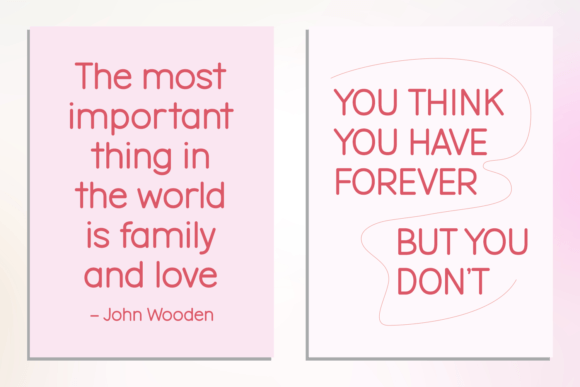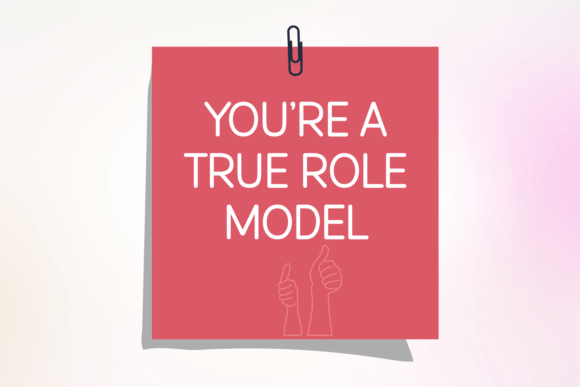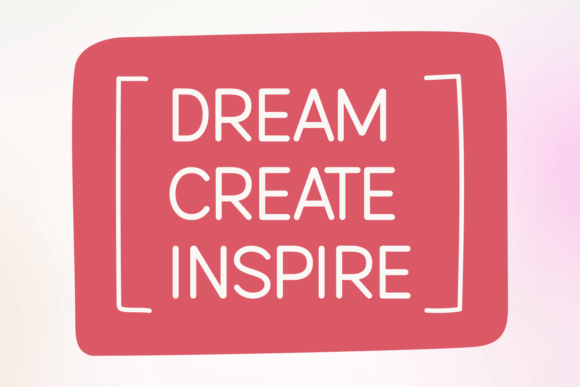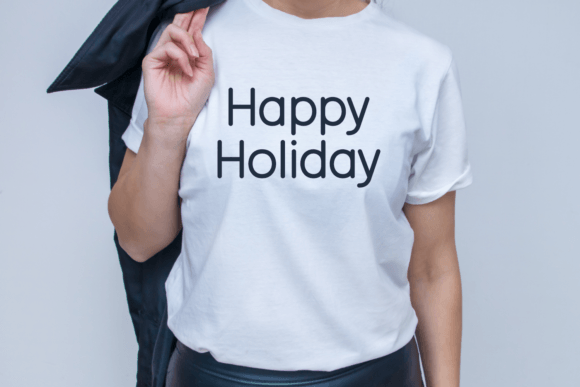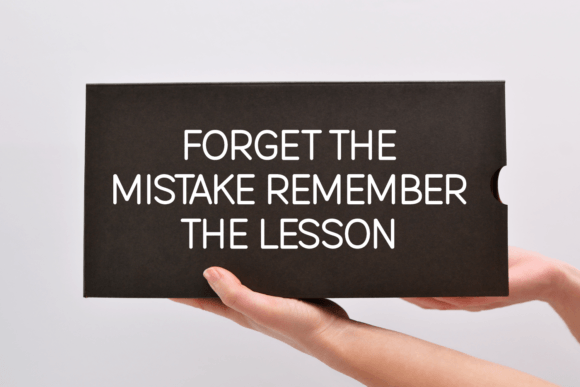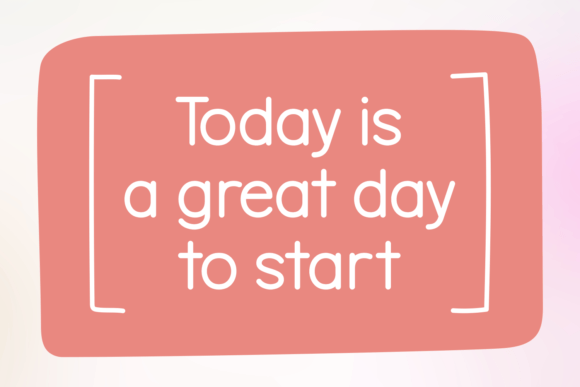
Introduction to Fancy Mother Font
Have you ever found yourself stuck on a creative project, desperately searching for that one design element to elevate your work from good to great? For designers, this is a familiar feeling. It’s the moment when you need a font that exudes high quality, sophistication, and a hint of playfulness. This is where the Fancy Mother Font comes in – a stunning sans serif font that brings a touch of elegance to any digital design project.
Perfect for designers looking to add a stylish twist to their work, Fancy Mother Font is a versatile design resource that lends itself to a wide range of creative applications. From presentation designs to greeting cards, logos, and advertising campaigns, this font is sure to make a lasting impression. And with its transparent background, it’s easy to use and customize to suit your needs.
- High-quality design: Fancy Mother Font is a premium font designed for creative projects, ensuring a professional and elegant look.
- Large character set: Fancy Mother Font includes a wide range of characters, including uppercase and lowercase letters, numbers, and special symbols.
- Unique and elegant style: Fancy Mother Font features a distinctive and elegant design, making it perfect for use in creative projects that require a touch of sophistication.
Honest Review: Fancy Mother Font
I recently had the chance to work with the Fancy Mother Font, and I must say it’s been a pleasant experience. This font is perfect for any creative project that requires a touch of elegance and sophistication.
What works well: ✨ The font is incredibly versatile and can be used for a wide range of designs, from branding materials to editorial content. The high quality of the font is evident in its crisp lines and smooth texture.
Some notable features of the Fancy Mother Font include:
- High-quality design, perfect for professional projects.
⚠️ One limitation of the Fancy Mother Font is that it may not be suitable for projects that require a more playful or casual tone. However, for most design resources, this font is a great choice.
Fancy Mother Font
The Fancy Mother Font is a unique and versatile design resource ideal for creative projects that require a touch of elegance and sophistication. With its high quality and transparent background, this font can be used in a variety of contexts, from graphic design to digital art.
Tips for Getting the Most Out of Fancy Mother Font
For optimal results, use the Fancy Mother Font in conjunction with other design elements, such as images and textures, to create a visually appealing and cohesive design. Experiment with different font sizes, colors, and styles to achieve the desired look.
The Fancy Mother Font is suitable for a wide range of creative projects, including wedding invitations, birthday cards, and social media graphics. Its elegant and sophisticated design makes it perfect for special occasions and events that require a touch of class and sophistication.